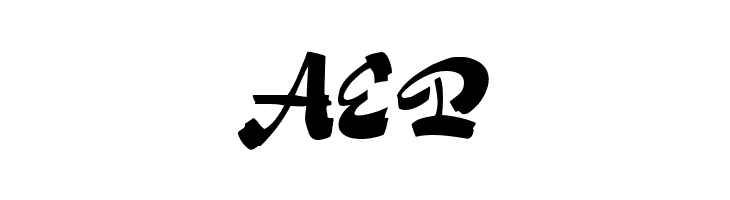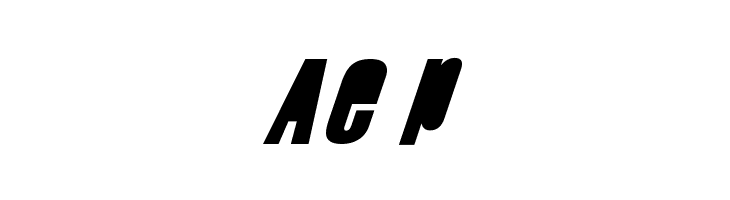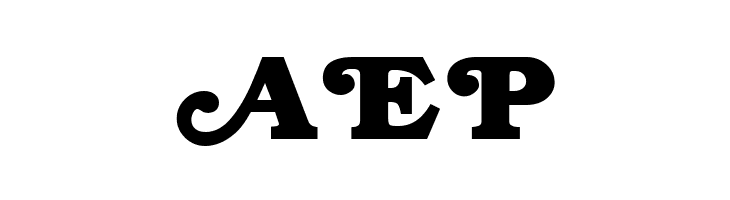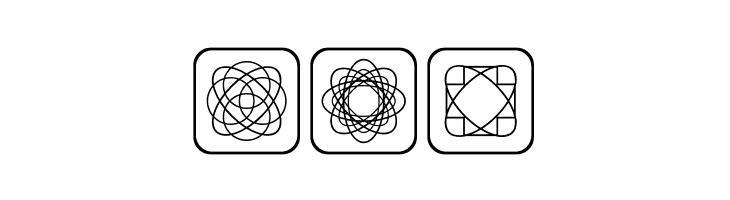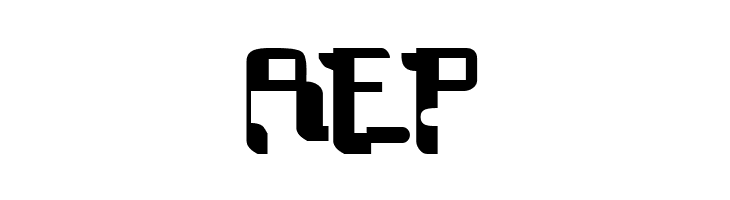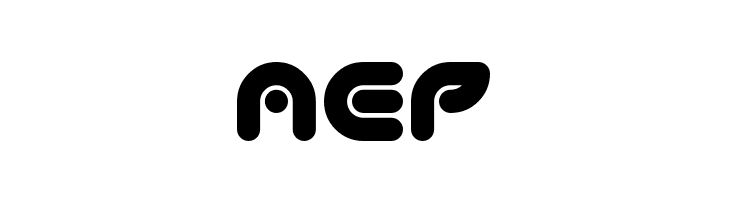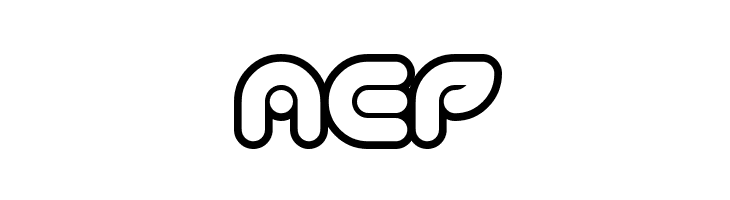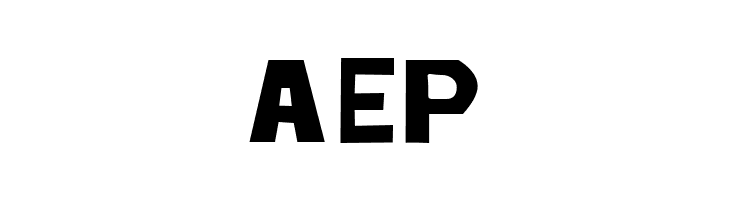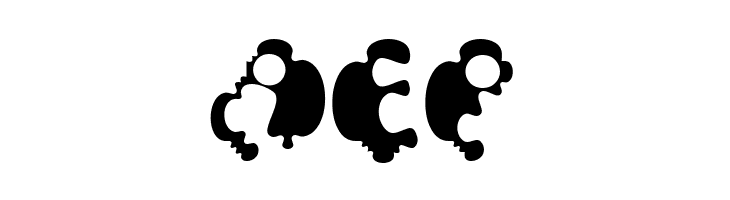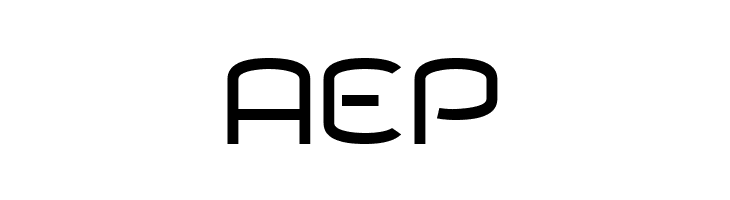
A hand-drawn, rustic font with playful, uneven strokes.
A bold, swash-filled font with a calligraphic and dynamic style.
A bold, condensed, and slanted font with tight spacing and a dynamic style.
A whimsical and airy font with delicate, flowing strokes.
A bold, geometric font with a futuristic and industrial design.
A futuristic, geometric font with bold, structured characters.
A bold, geometric font with sharp angles and a modern edge.
A playful, bold, hand-drawn font with outlined characters.
A tall, narrow font with Art Deco influences, featuring geometric and elegant styling.
A tall, narrow font with a distressed, vintage texture.
A tall, narrow font with a clean, modern aesthetic.
A bold, decorative script font with flowing cursive letterforms and shadow effects.
A playful font with characters enclosed in teardrop shapes, offering a whimsical and decorative style.
A modern, geometric font with rounded edges and a tech-inspired design.
A bold, futuristic font with rounded, geometric letterforms and dynamic cut-out sections.
A bold, rounded font with a playful outline, perfect for modern designs.
A modern, rounded geometric font with a futuristic style.
A decorative script inspired by Elvish languages, featuring elegant and flowing lines.
An artistic and decorative script with a mystical, ancient appearance.
A modern, geometric font with clean lines and a futuristic feel.
A modern, geometric sans-serif font with uniform stroke width and balanced proportions.